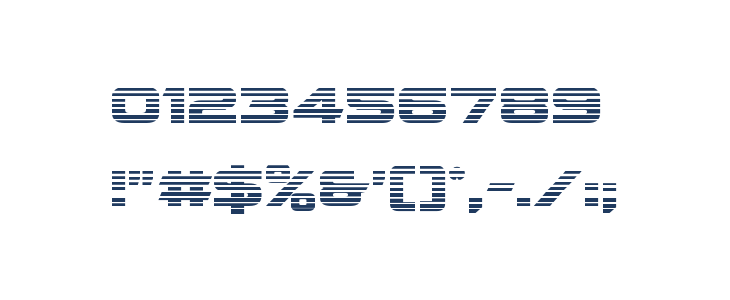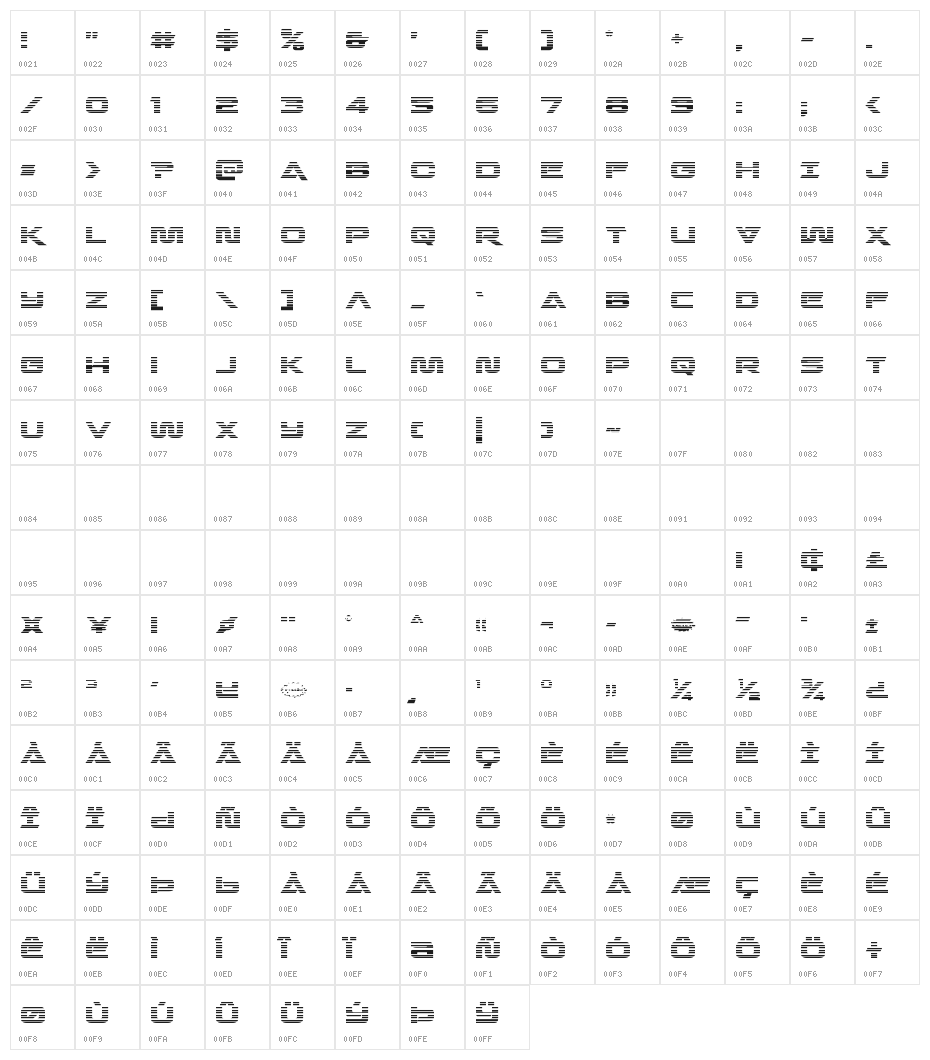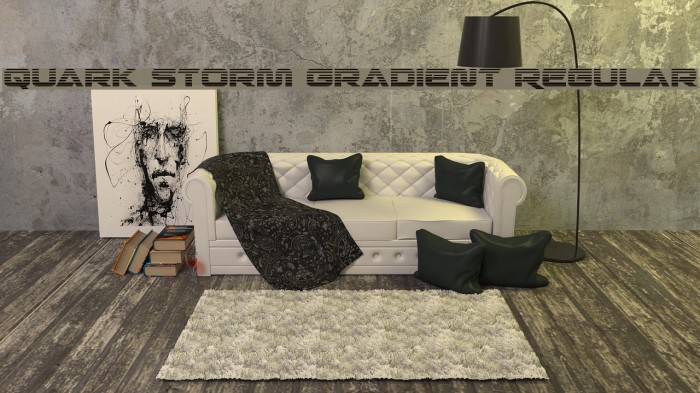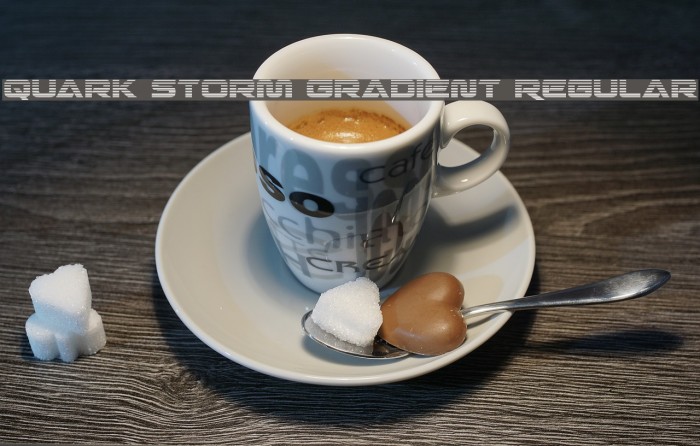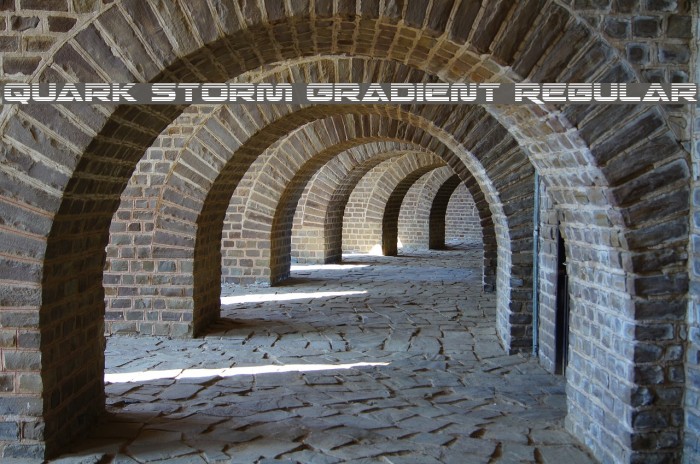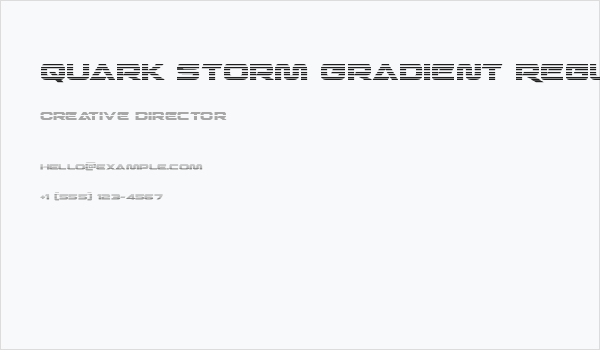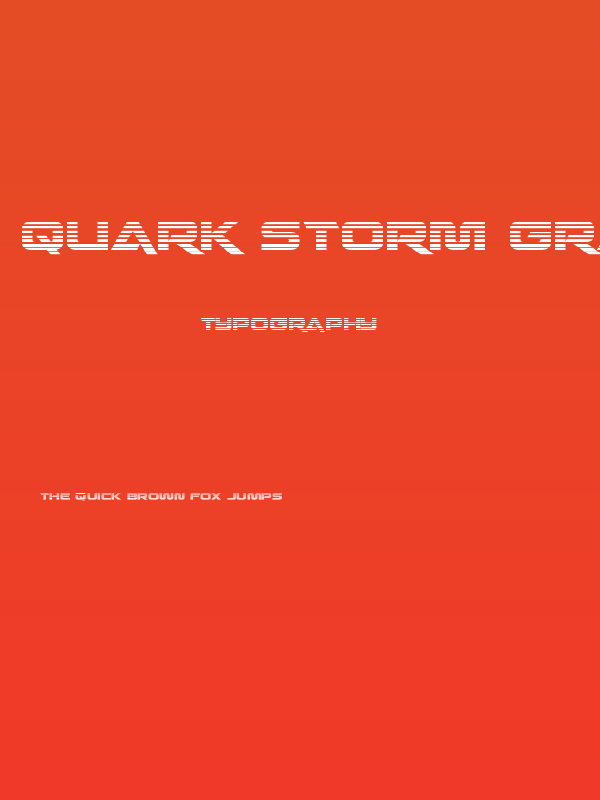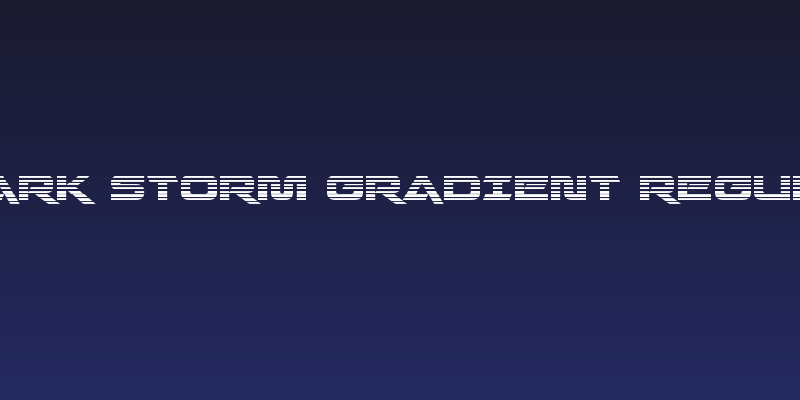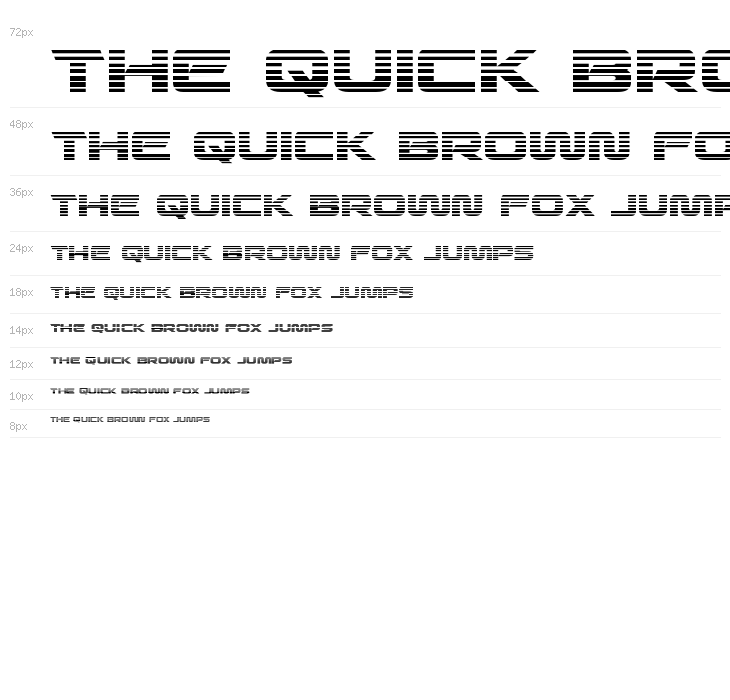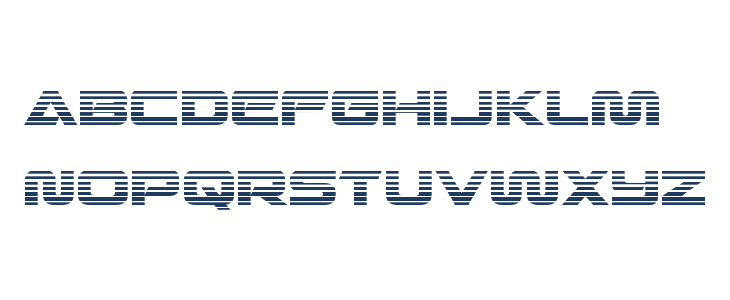
Quark Storm Gradient Regular Font
Quark Storm Gradient Regular Description
This font features a futuristic and dynamic design with a distinct horizontal line pattern running through each character, creating a sense of movement and energy. The uppercase and lowercase letters are bold and angular, with sharp edges and a geometric structure. The numbers and special characters maintain the same stylistic approach, ensuring consistency across all elements. The font's unique style makes it stand out, ideal for projects that require a modern and edgy look.
| Proposed Projects | Ideal for sci-fi themed designs, technology branding, video game titles, and modern advertising campaigns. |